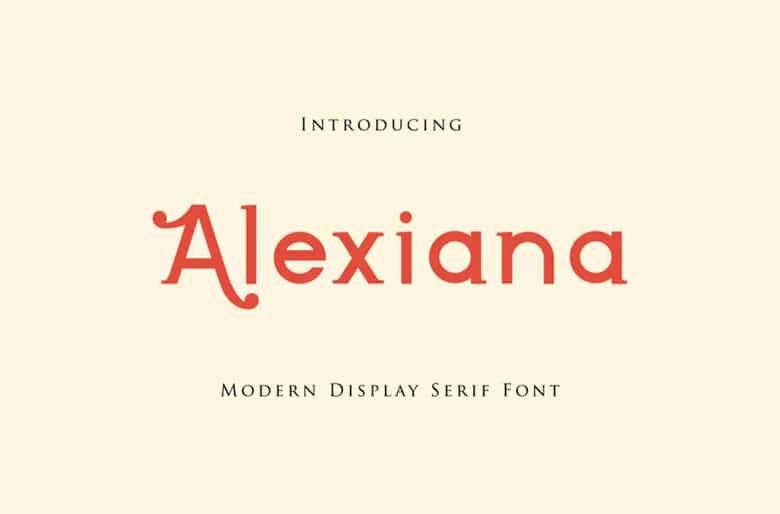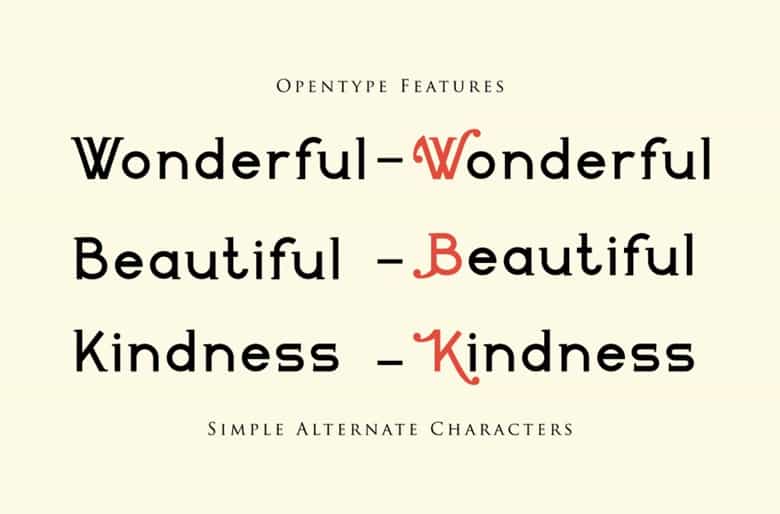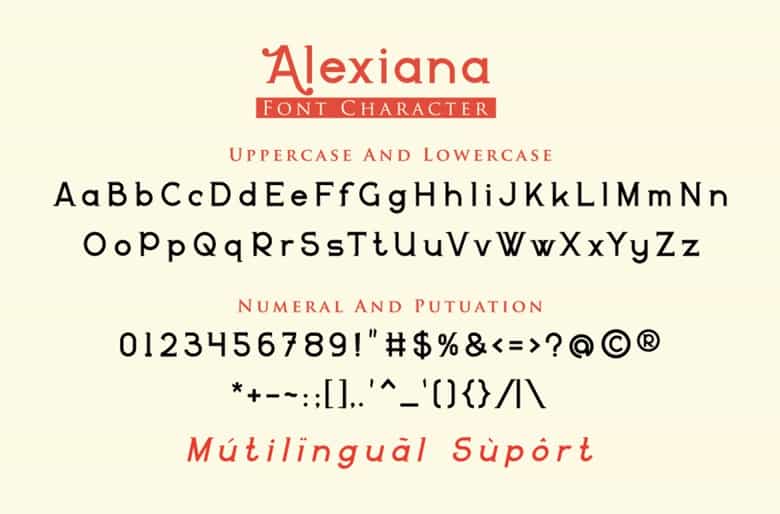
Alexiana Font
Alexiana is a modern display serif font evocative of a vintage era. Especially that it has some notable retro-conservative touch, that makes it suitable for representing your texts with a touch of nostalgia. However, Alexiana provides much more than that. Its modern expressive alternatives and its unique fasteners make this a capable fastener for any project and an exciting injection of fun. Just try to adjust and play around with these features and you shall witness that your design starts taking a character of its own.